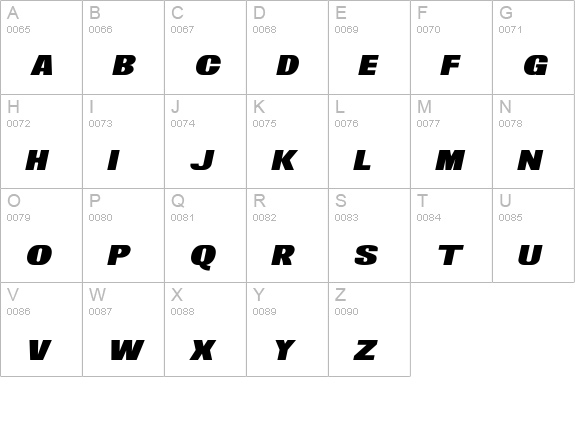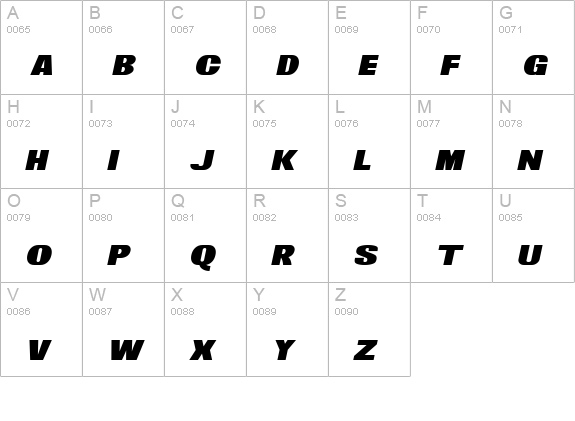
News of the World Wide Italic is a distinctive, extended-width, italic variant in the News typeface family \xE2\x80\x94 well suited to design and typography projects.
Introducing the News of the World Wide Italic font, a captivating and versatile typeface that is sure to elevate any creative project. With its elegant and modern design, this font exudes sophistication and professionalism, making it perfect for headlines, magazine layouts, branding materials, and more. What sets News of the World Wide Italic font apart is not just its stunning aesthetics, but also its accessibility. This font is freely available to download at FontsMarket.com, allowing designers, artists, and enthusiasts alike to unleash their creativity without any restrictions. Now, you can effortlessly incorporate this eye-catching font into your designs, delivering a seamless and visually pleasing experience to your audience. Whether you are designing a sleek website, crafting a captivating advertisement, or creating visually striking social media graphics, News of the World Wide Italic font will instantly elevate your work to new heights. Its sleek and flowing italic style adds a touch of elegance and sophistication, while still maintaining readability and legibility across various platforms and media. With its extensive character set, including special characters, punctuation marks, and numerals, the News of the World Wide Italic font offers endless possibilities for your creative endeavors. Whether you want to create bold headlines, emphasize important points, or add a touch of elegance to your text, this font has got you covered. Don't miss out on this incredible opportunity to enhance your design projects with the News of the World Wide Italic font. Download it for free today at FontsMarket.com and unlock a world of creativity and endless possibilities. Elevate your designs, captivate your audience, and make a lasting impression with this stunning and freely accessible font.